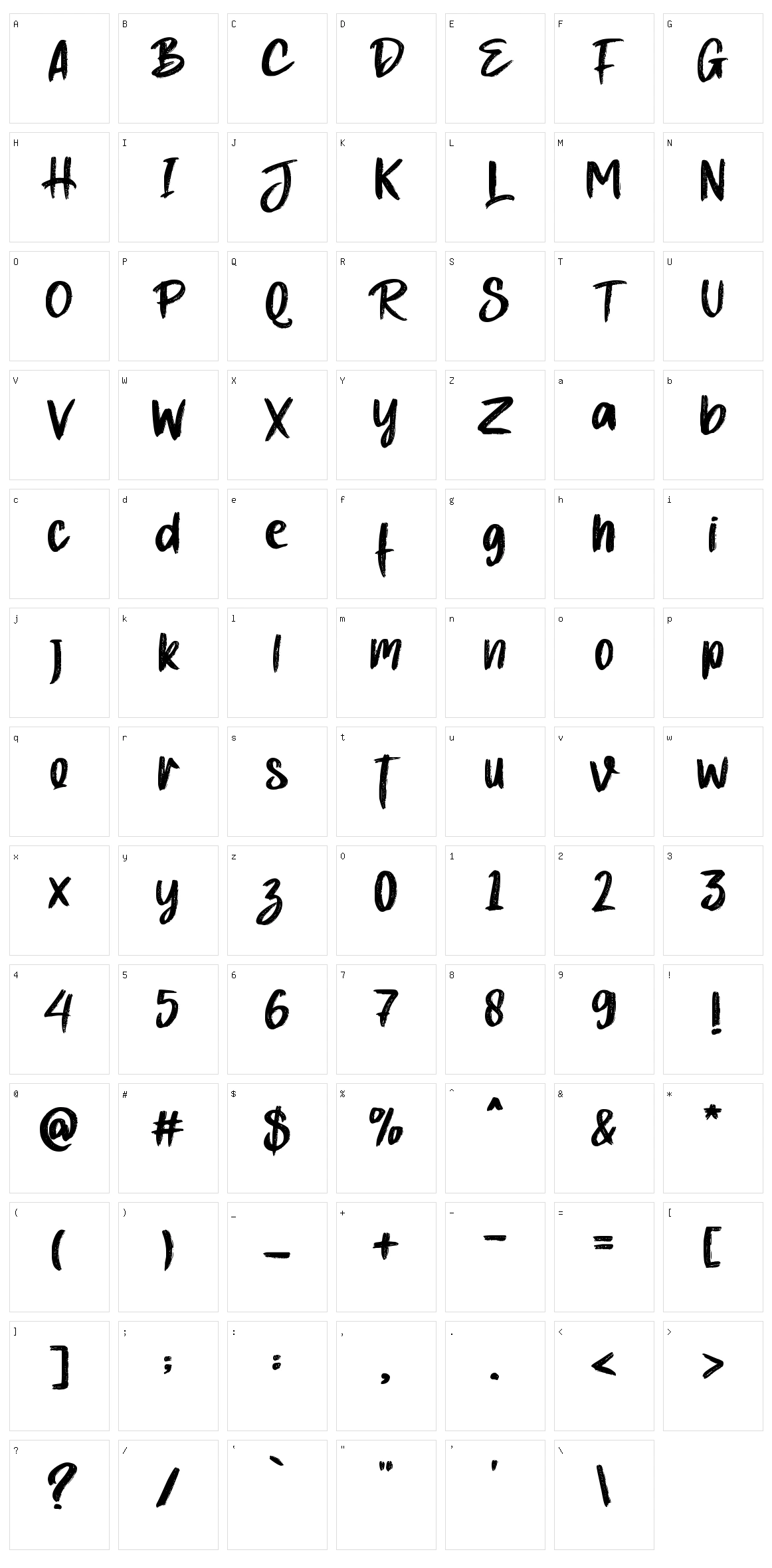
The free font Light Bearer is carefully designed by Letterara, showcasing a thoughtful balance of creativity and usability and falls under the Script font style. When you download the ZIP file, it contains only 383.8 KB of font files, making it lightweight and quick to download. Please review the license details below to understand permitted usage and distribution rights. If license information is not available, we recommend using this font for personal projects only or contacting the author directly for commercial usage permissions.